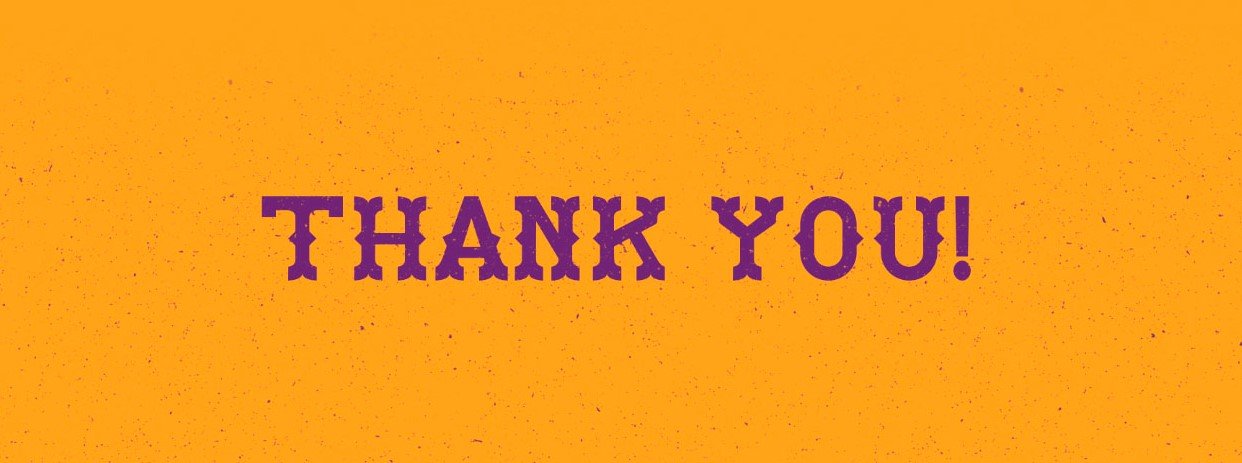
Introducing monotonia typeface! Monotonia designed and shared by using Eduardo da Floresta. Monotonia is a display typeface.
Monotonia is suitable for Christmas gambling playing cards, bridal ceremony invites, branding, stationery, weblog format, custom art, custom stamps, custom embossers, or any format motive. You can use it for your non-public use, or a commercial enterprise assignment.
A high-quality very awful lot completed typeface which labeled in fancy fonts. It was republished using Softmaker inside the kind configuration show off.
Monotonia Display Typeface Free
It’s miles perfect for any form of large textual undertakings, which include in e-book titles, movie trademarks, quotes styling, card layouts, and others.
I consider it will assist you in conjunction with your numerous fonts that is similar to stonestick imperfect designing objectives and could make your clients and your audiences amazed at the equal time.